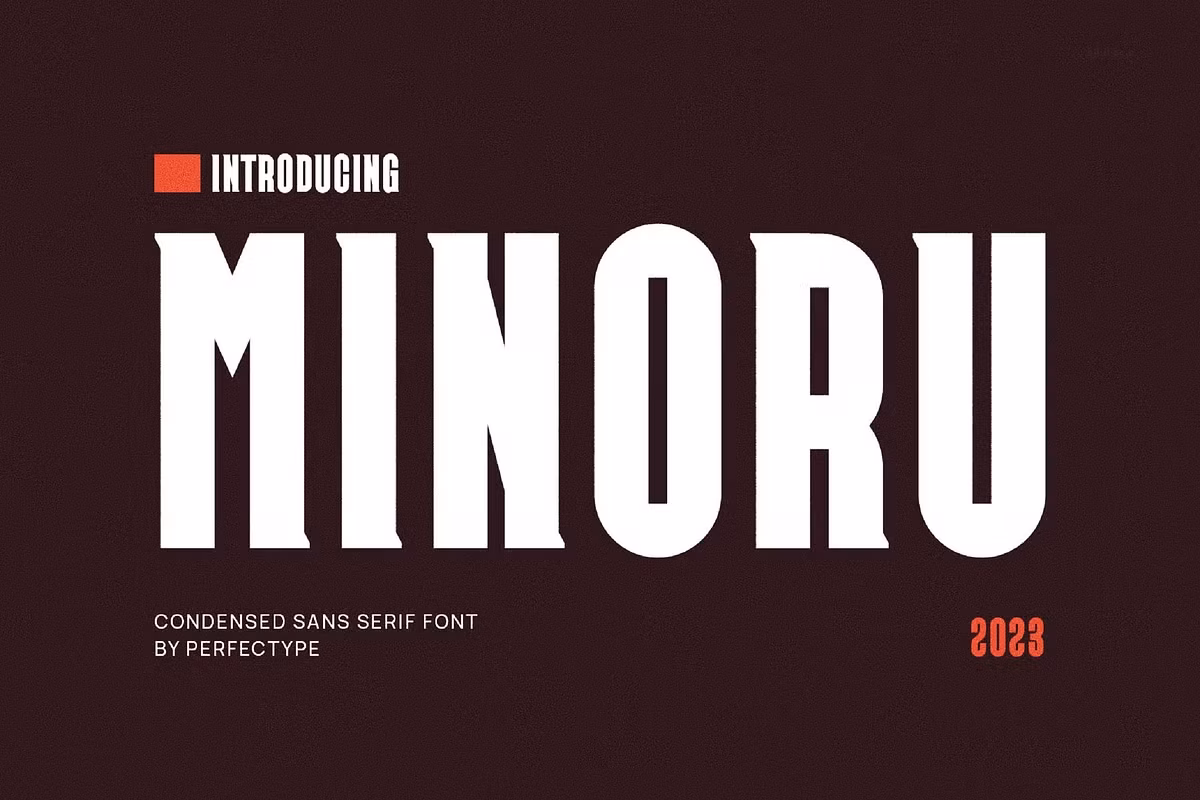
Minoru Modern Sans Serif Font Free Download
Minoru Modern Sans Serif Font Free Download is a clean, contemporary sans-serif typeface designed with simplicity and versatility in mind. With its geometric letterforms and balanced proportions, Minoru is perfect for use in branding, websites, corporate materials, social media graphics, and more.
Minoru combines minimalism with readability, making it an excellent choice for both digital and print projects. Its modern design ensures that it looks sharp and professional in any context, whether you're designing for a tech company, fashion brand, or creative project.
The font includes uppercase and lowercase letters, numerals, punctuation, and multilingual support, providing flexibility for a variety of design needs. It works beautifully in both body text and display settings.